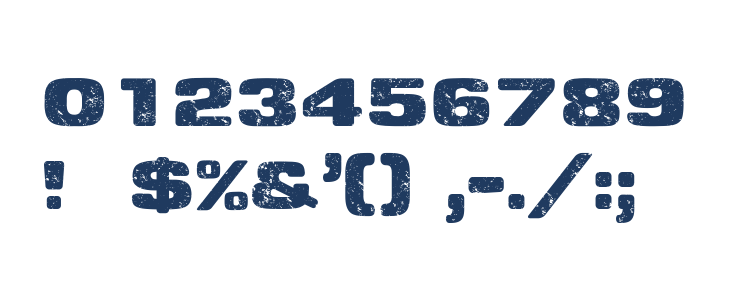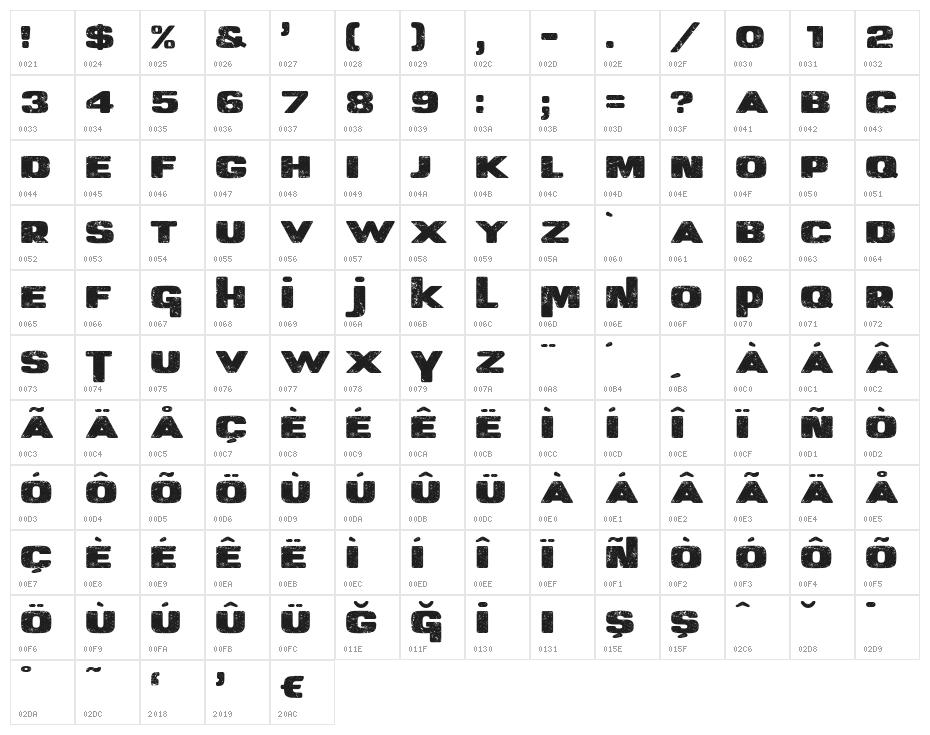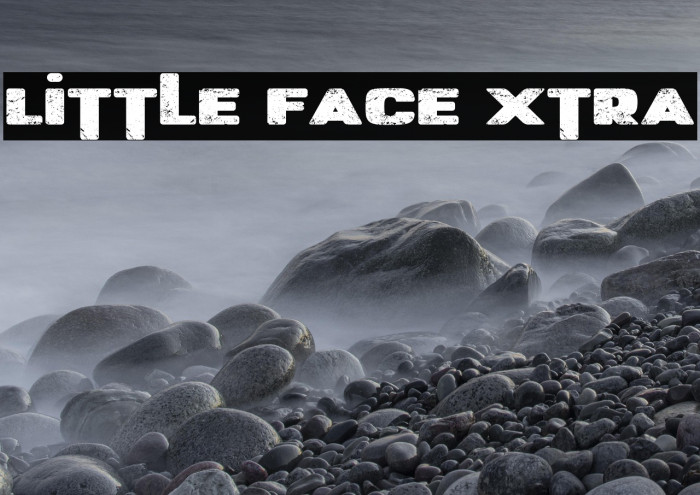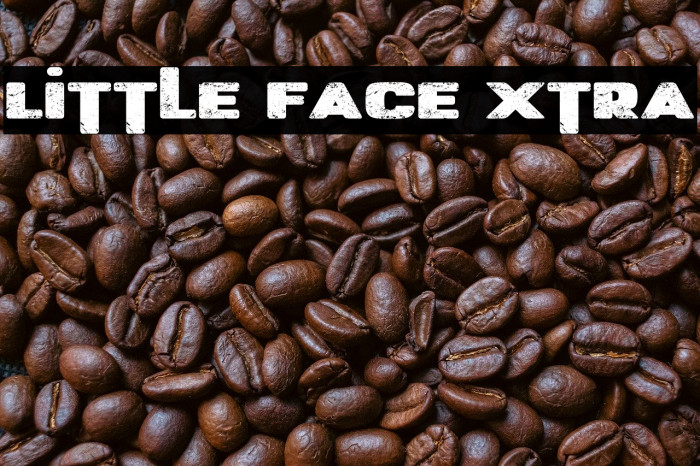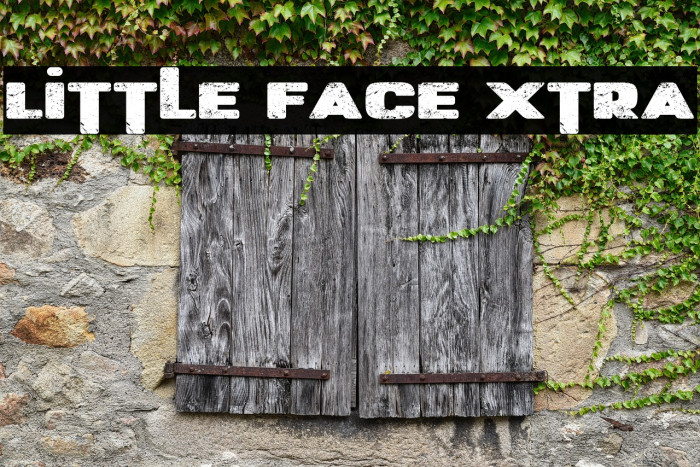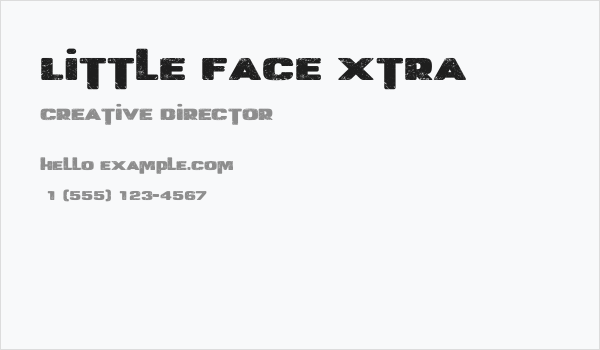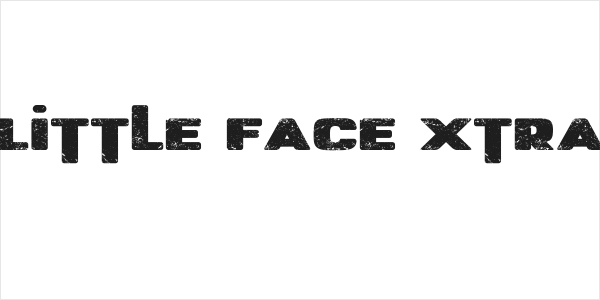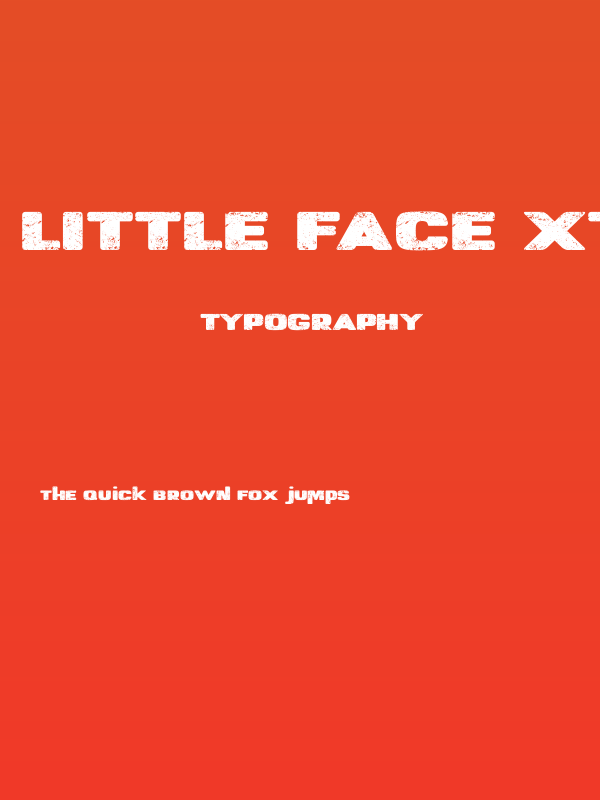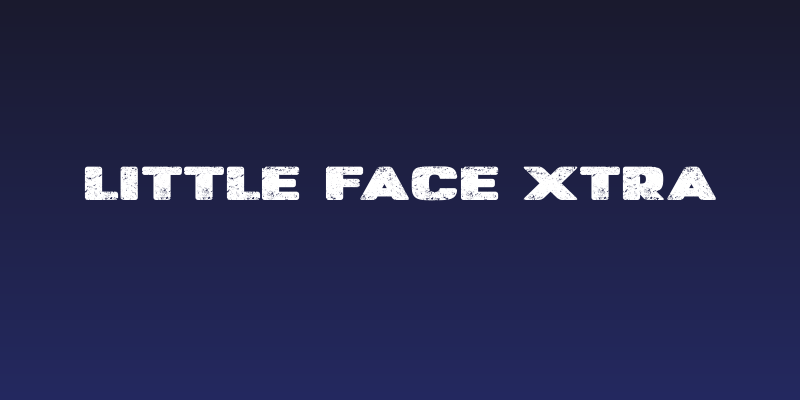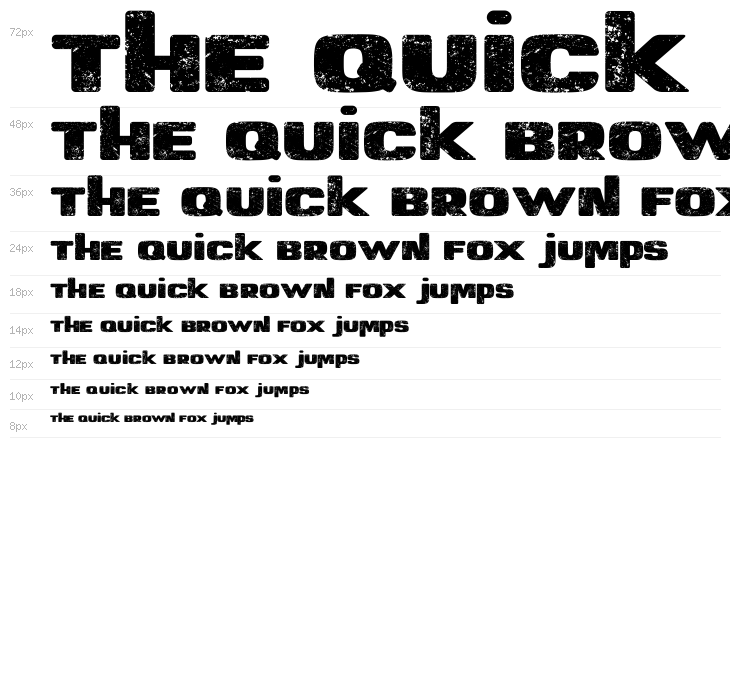
Little Face Xtra Font
Little Face Xtra Description
This font exhibits a bold and distressed style, characterized by its rough, textured appearance that gives it a vintage and rugged feel. The letters are thick and blocky, with a consistent weight throughout, creating a strong visual impact. The distressed texture adds a layer of depth and character, making it ideal for designs that require a gritty or worn look. The uppercase and lowercase letters maintain a uniform width, while the numbers and special characters follow the same stylistic approach, ensuring cohesion across all elements. The font's boldness and unique texture make it stand out, suitable for projects that aim to convey strength and authenticity.